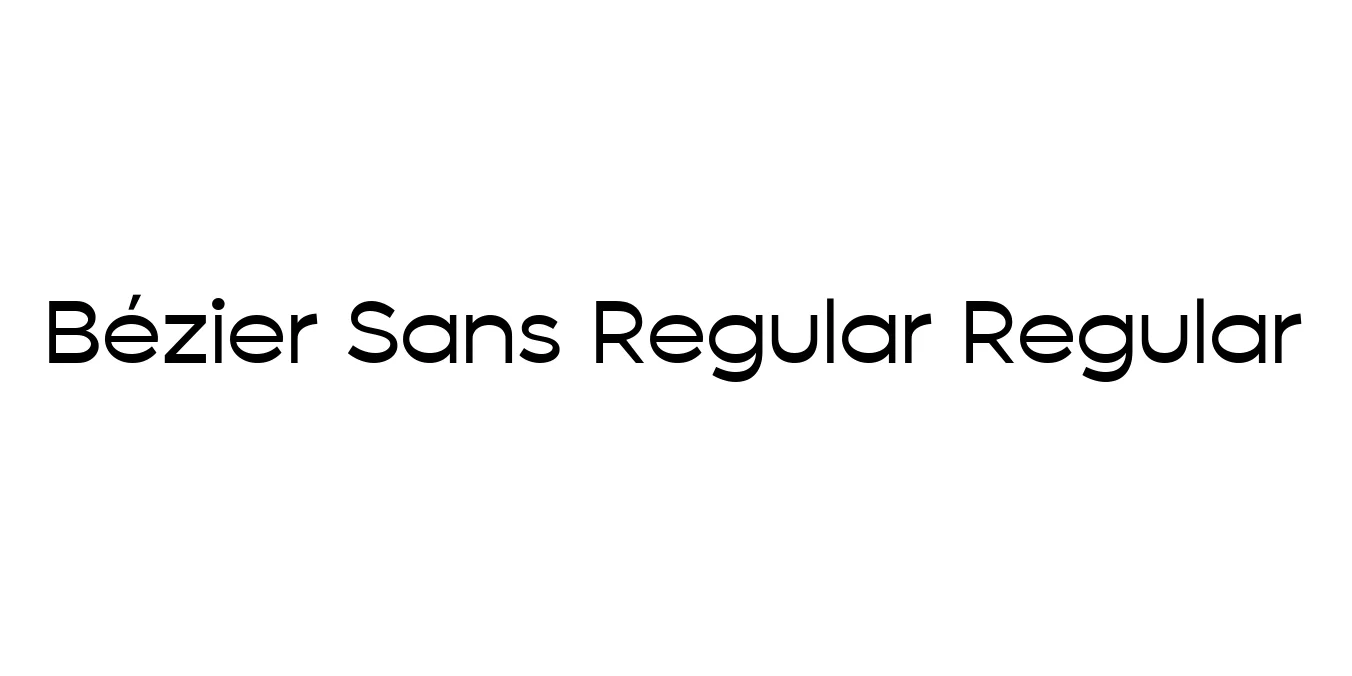
Bézier Sans Regular Regular
Bézier Sans Regular is a masterfully crafted sans-serif typeface that emphasizes mathematical precision and geometric harmony. Drawing inspiration from the Bézier curves central to digital typography, this font features clean, unadorned lines that offer a high degree of clarity and visual balance. Its development focused on creating a versatile workhorse for the digital age, stripping away unnecessary ornamentation to favor structural integrity and functional design.
In practical application, Bézier Sans Regular stands out for its exceptional legibility at small sizes, thanks to its generous x-height and open counters. This makes it an excellent choice for both on-screen user interfaces and traditional print media. The font's neutral yet sophisticated character allows it to seamlessly integrate into various design environments, ranging from minimalist architectural branding to complex data visualization projects.
Bézier Sans Regular Best Uses
Establishing a clean and trustworthy brand voice for modern businesses.
Perfect for apps and websites where legibility and clarity are paramount.
Effective for both body text and secondary headings in minimalist magazines.